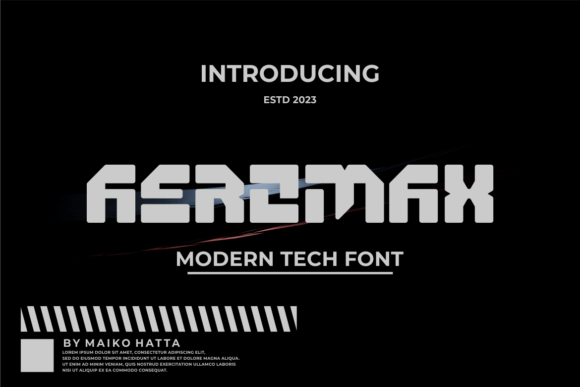
Feast your eyes on Aeromax Font, a modern display font that radiates boldness and authenticity. This captivating creation by maikofarazhatta is a typographic masterpiece that will elevate your designs to new heights.
With its striking presence, Aeromax Font is a perfect fit for a diverse range of branding projects. Let it unleash its power in logo designs, template creations, esport ventures, and countless other endeavors. Beyond its versatility, Aeromax Font possesses a distinct style that sets it apart from the mundane.
Immerse yourself in the world of gaming and let Aeromax Font be the champion of your gaming name. The font's bold strokes and dynamic curves will command attention, making your gaming persona unforgettable. Feel the rush of adrenaline as you dominate the virtual arena, with a name that strikes fear into the hearts of your opponents.
But Aeromax Font's prowess extends far beyond the gaming realm. Its versatility shines in logo designs, imbuing them with a sense of strength and authority. Craft logos that leave an indelible mark, capturing the essence of your brand with every stroke.
Unleash your creativity in template designs, using Aeromax Font to craft layouts that captivate and engage. Whether it's a website, a presentation, or a social media post, Aeromax Font will transform your words into an immersive visual experience.
Embark on an esport adventure like never before, with Aeromax Font as your trusty companion. Create team logos and tournament graphics that ignite passion and fuel the competitive spirit. Let the font's energy electrify the atmosphere, leaving spectators in awe of your team's prowess.
Aeromax Font is more than just a collection of letters; it's an artistic expression that speaks volumes. Its bold and confident demeanor will leave a lasting impression on all who encounter it. Join the ranks of those who dare to be different, to embrace the power of Aeromax Font and unlock a world of creative possibilities.